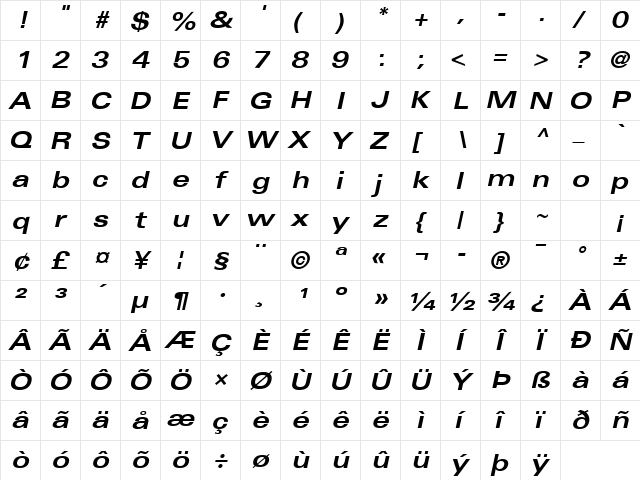
Univers Extended Bold Oblique Font Preview
Design Context for Univers Extended Typeface
Univers Extended takes a measured approach to typography — its balanced proportions and neutral character make it a reliable workhorse for both digital and print work. The slanted form adds forward momentum and visual energy. Its bold stroke weight gives it real presence on the page.
Pro Tip: Try Univers Extended for annotation and caption copy alongside an upright companion — the contrast in angle creates a dynamic but ordered typographic system.